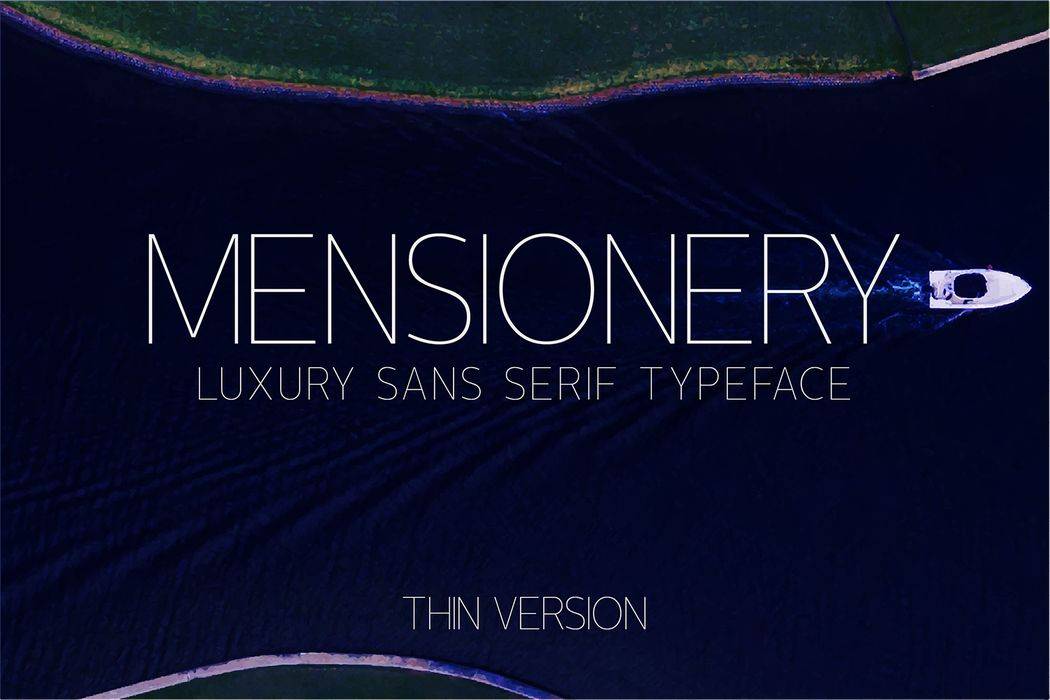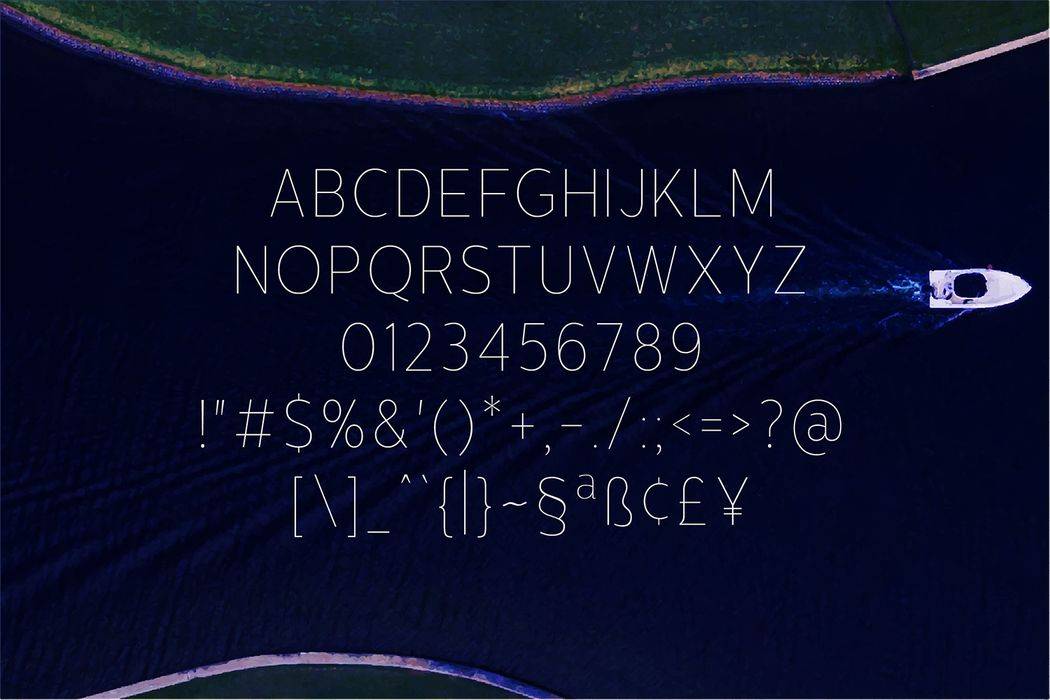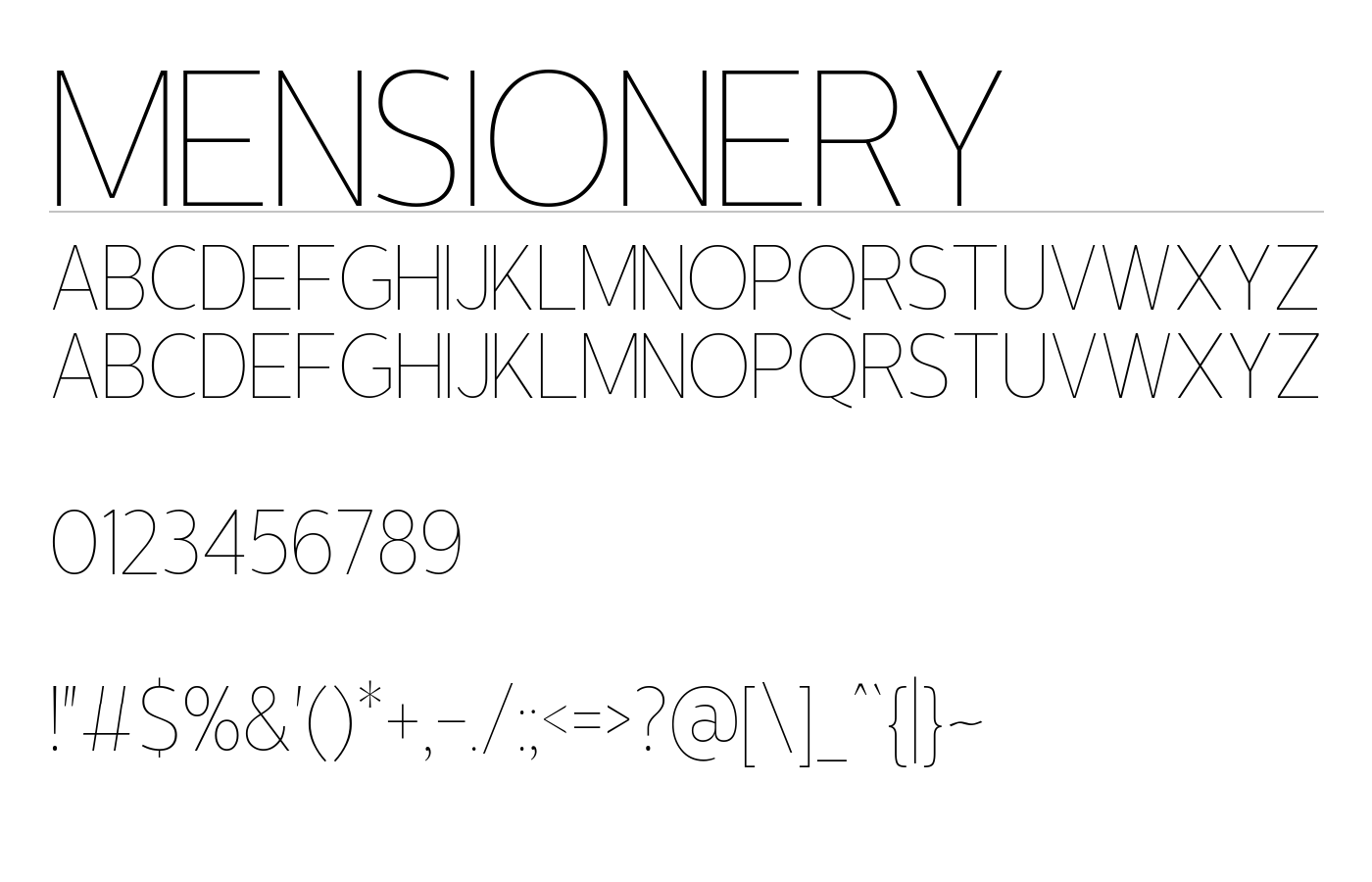
Mensionery Thin is a sleek, modern sans serif font characterized by its extremely thin strokes and tall, narrow letterforms that create an elegant and airy feel. Its clean, geometric lines and uniform stroke weight give it a sophisticated, minimalist appearance ideal for contemporary branding, headlines, or editorial design where a refined, understated look is desired. This font excels in settings that benefit from a stylish and polished tone, such as fashion or luxury projects, where clarity and elegance are key.
Mensionery Thin Font
About Mensionery Thin Font